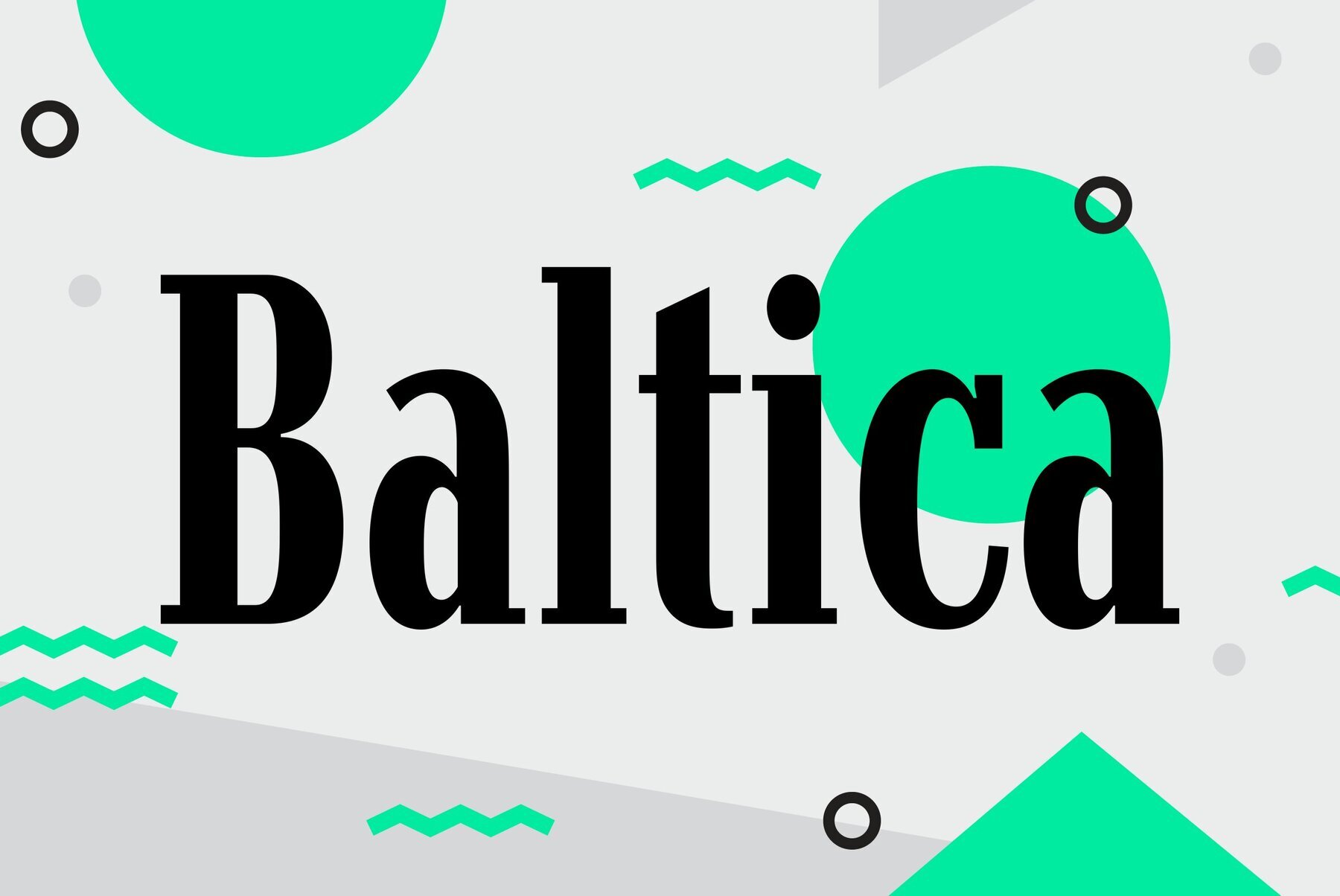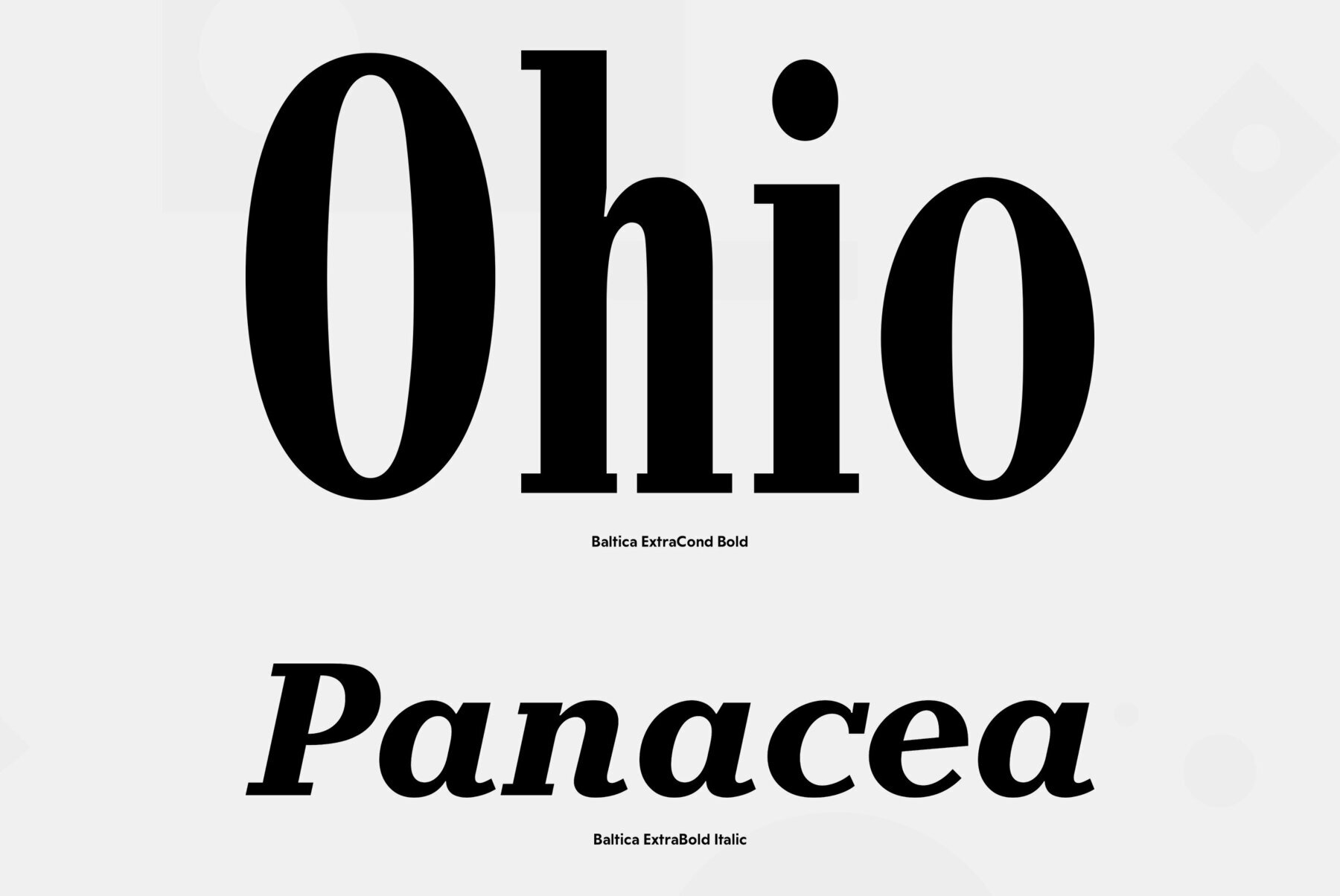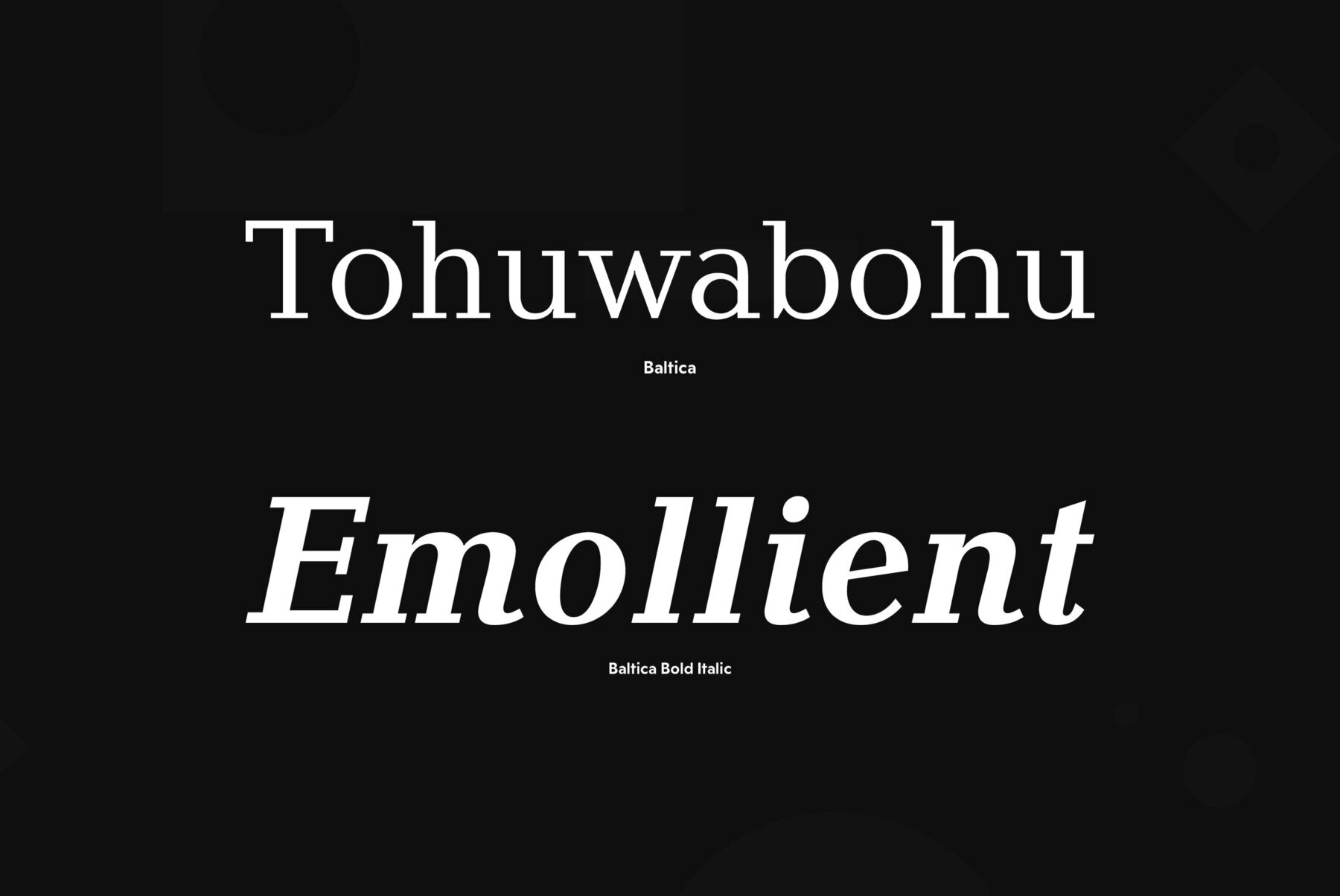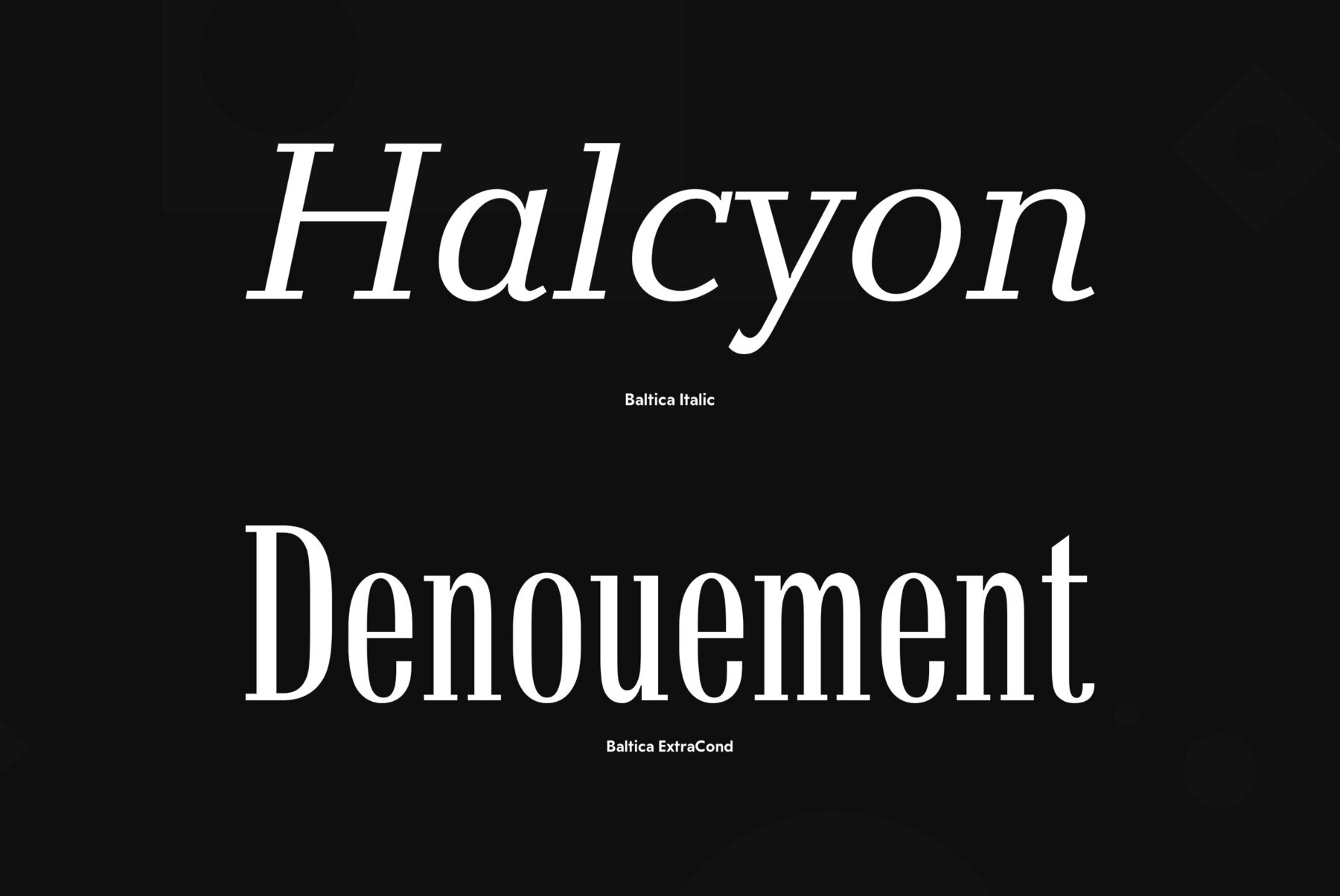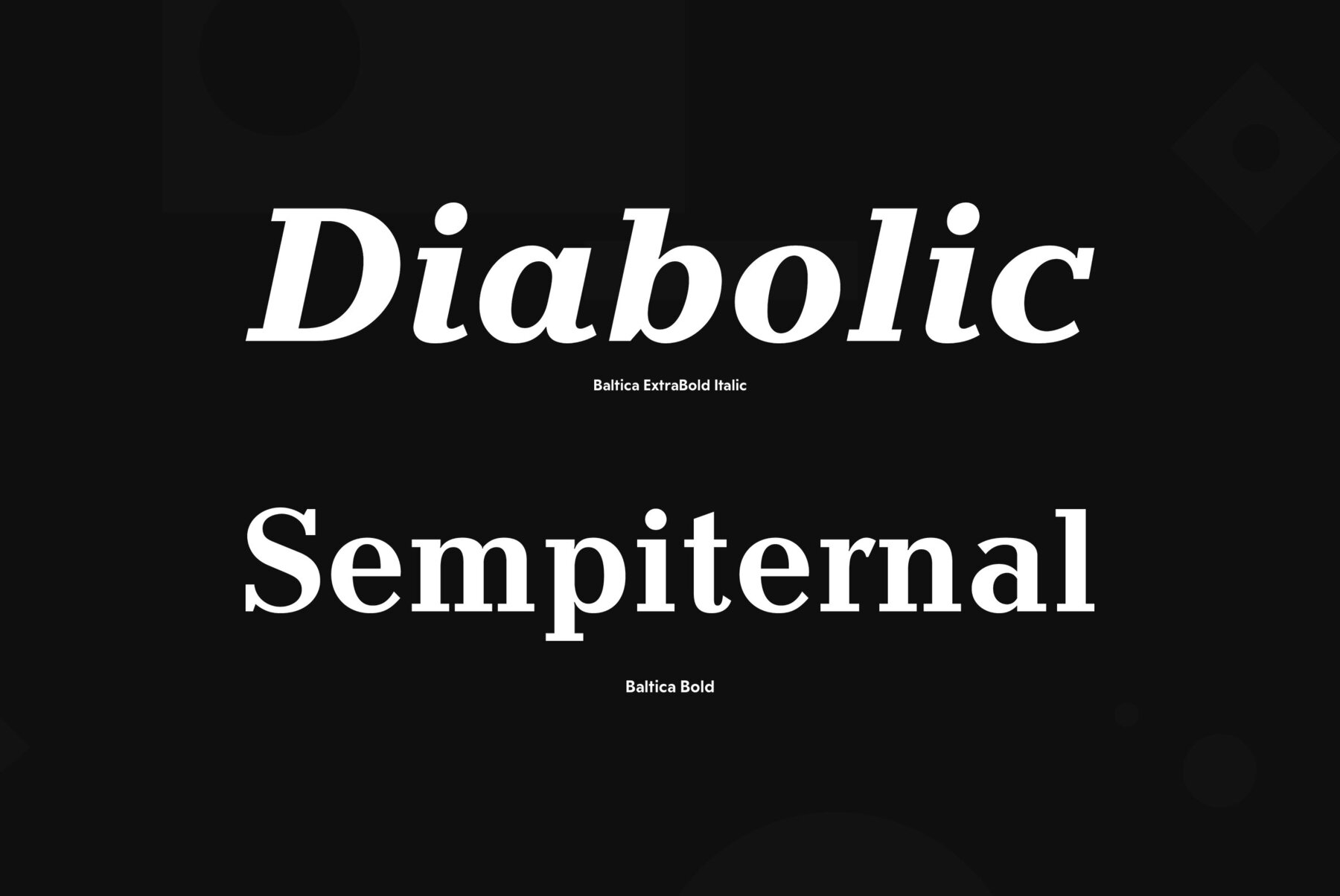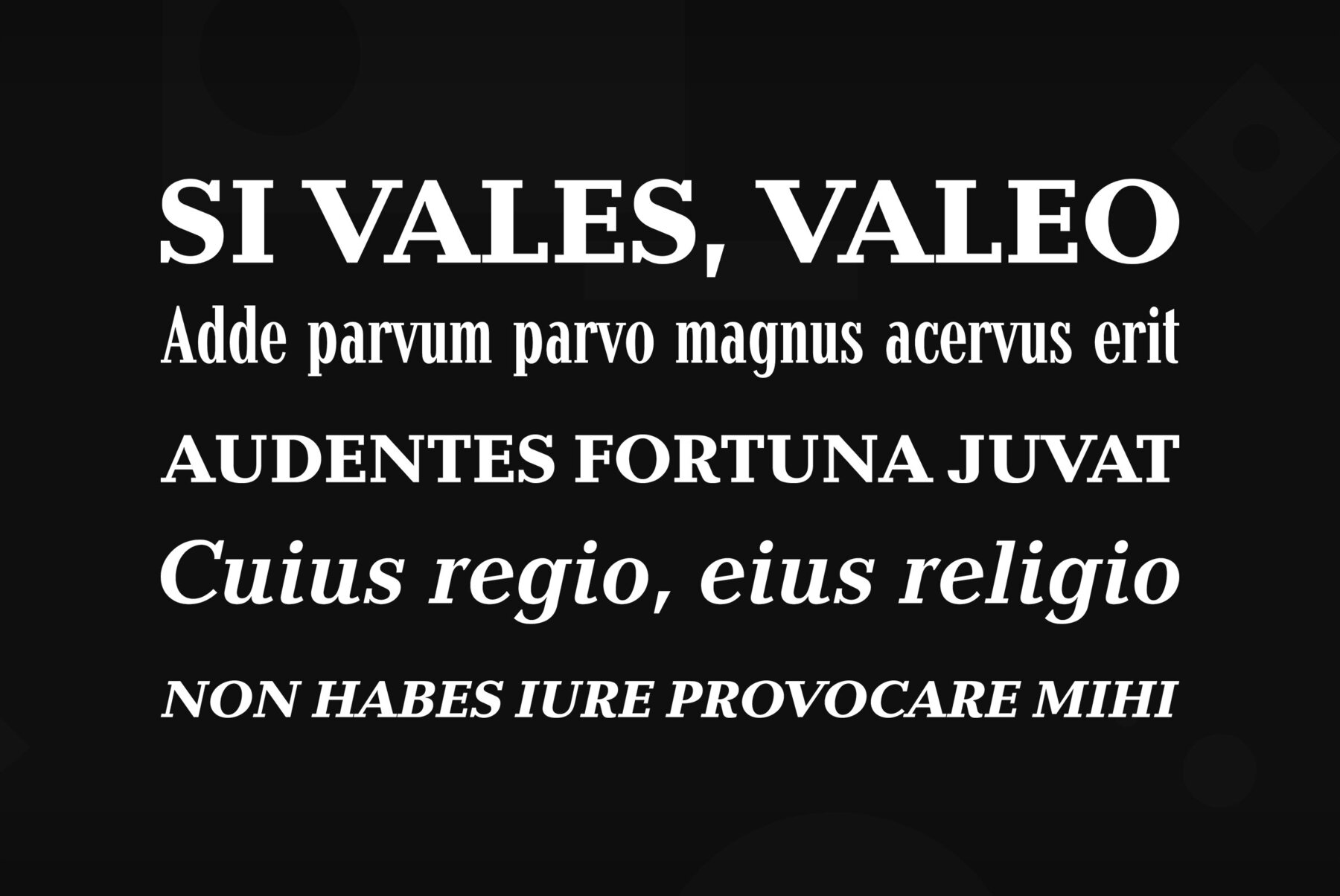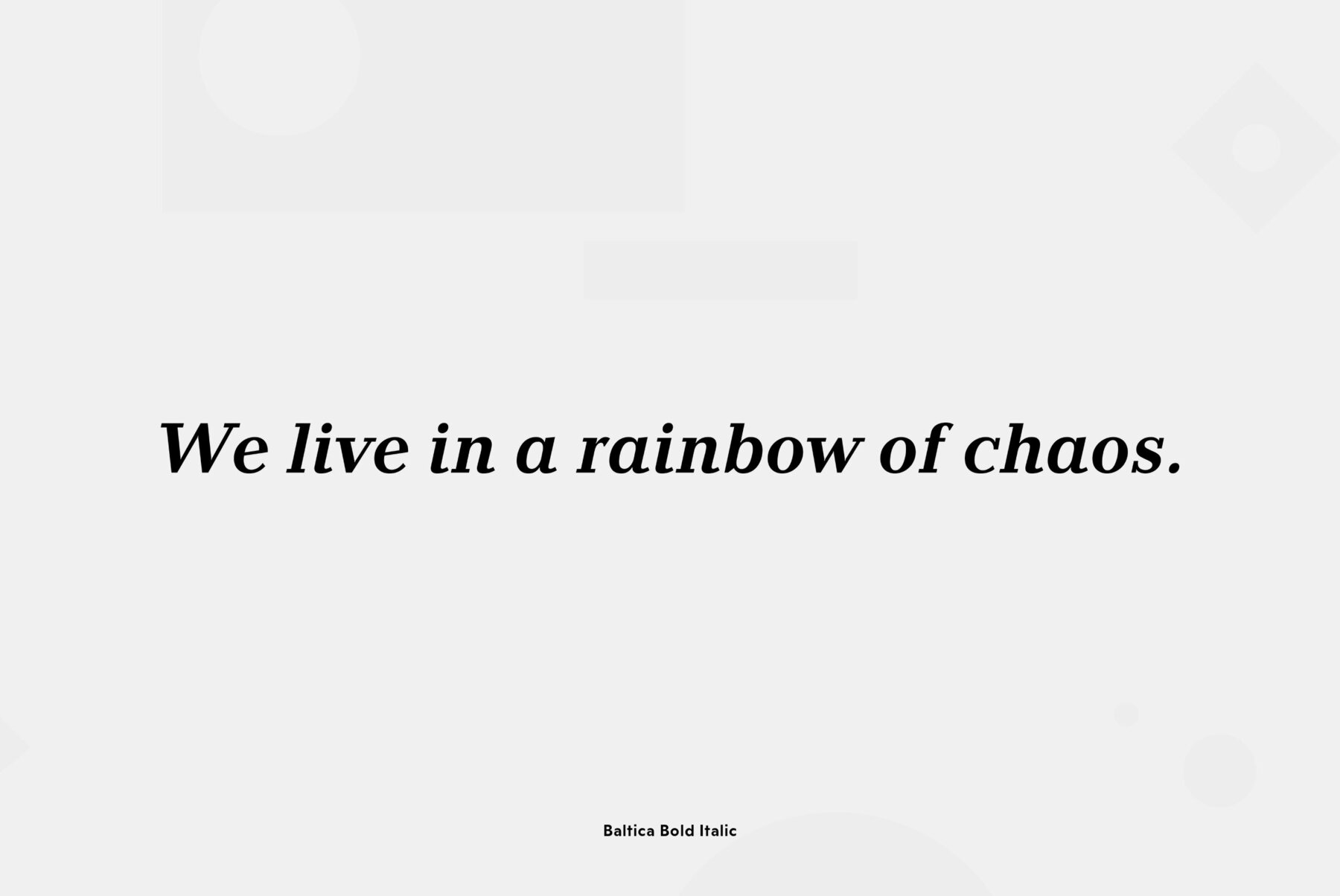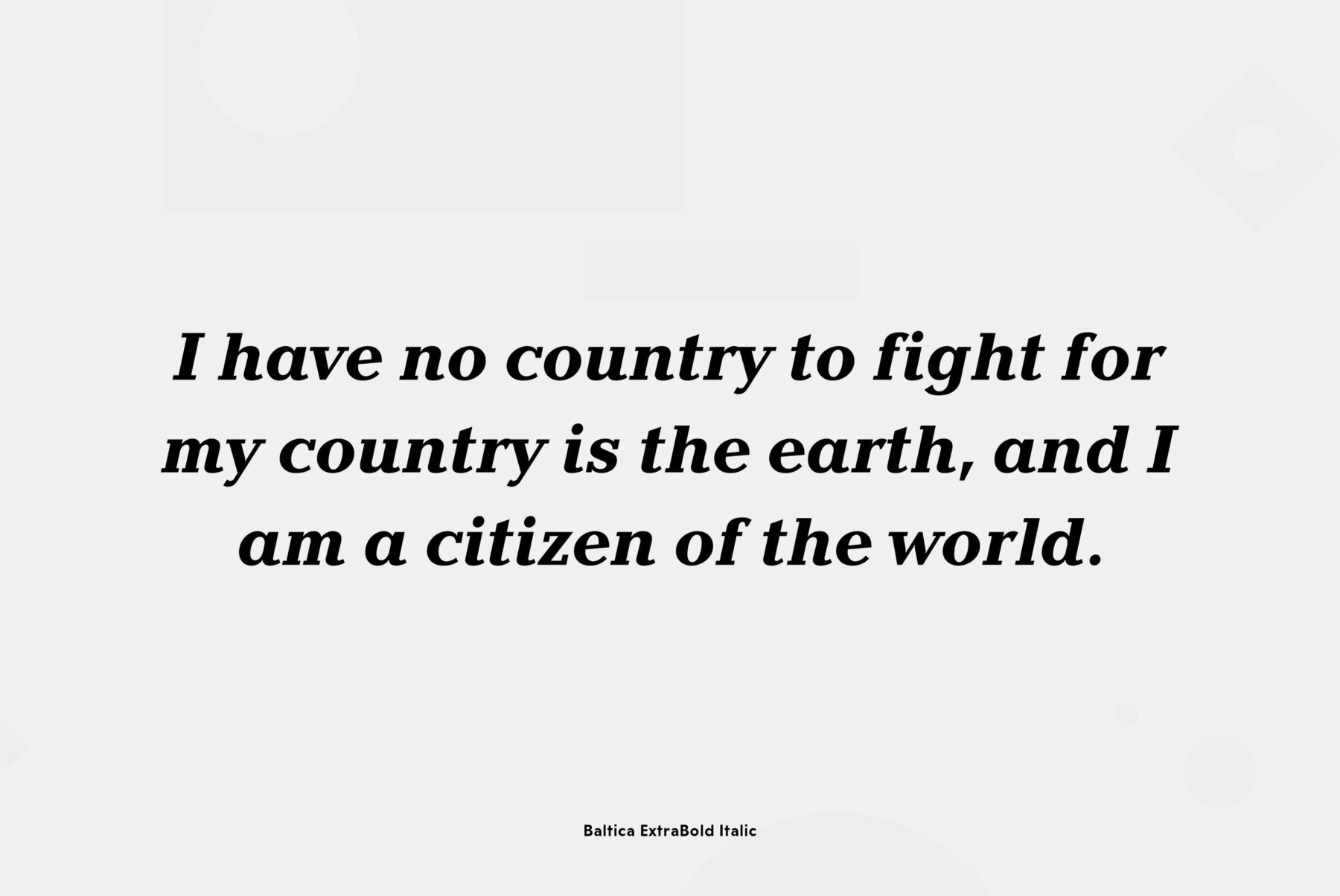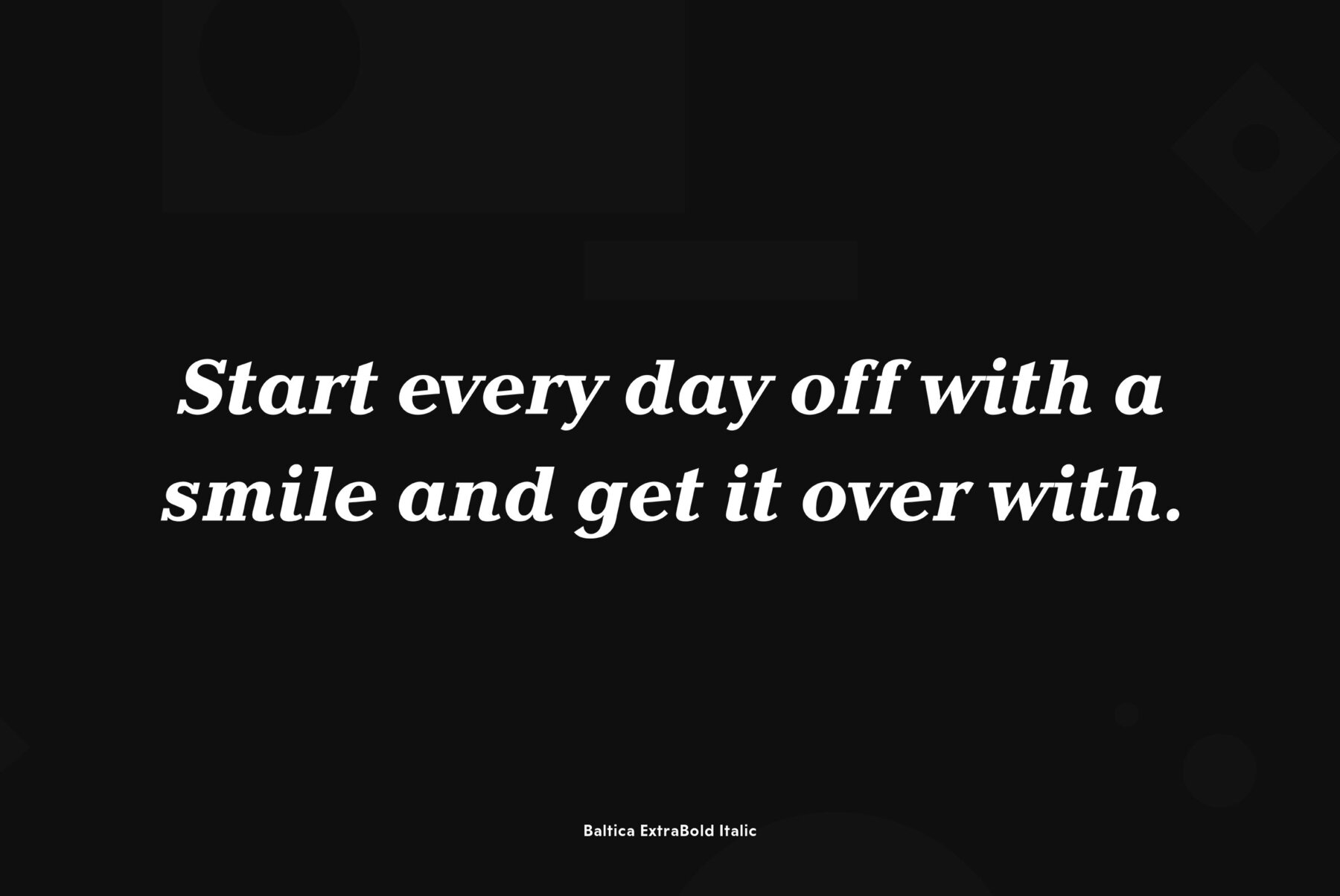
Baltica
Designed at Polygraphmash type design bureau in 1951-52 by Vera Chiminova, Isay Slutsker, et al. Based on Candida of Ludwig & Mayer, 1936, by Jakob Erbar. This typeface has the characteristics of slab-serif, but serifs are much thinner. The capitals are of generous width, x-height is large. Good legibility in small sizes makes this typeface useful in newspaper and magazine typography, while strong character shapes provide for pleasant display lines. The digital version in 3 weights was designed at Polygraphmash by Alexander Tarbeev in 1988. Small capitals, additional Bold, Extra Bold, and Extra Condensed styles were developed by Manvel Shmavonyan and released by ParaType in 2008.